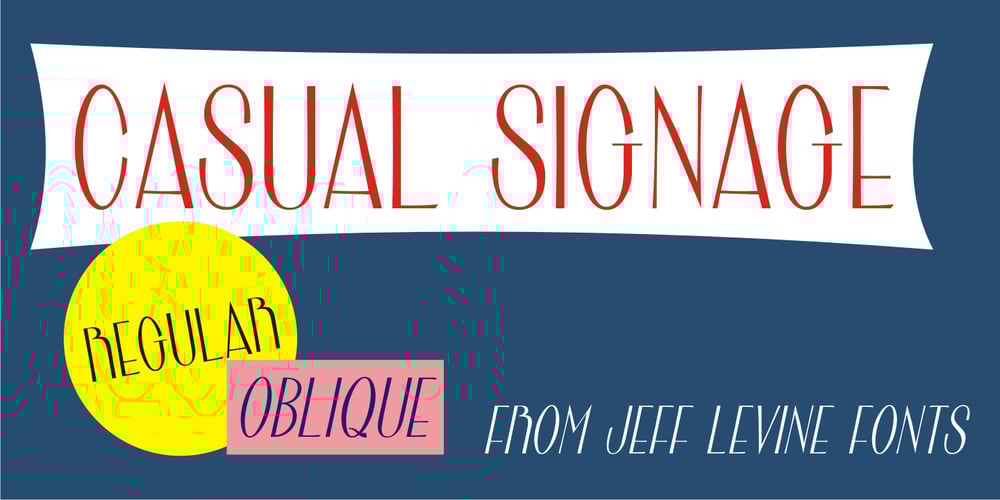
Casual Signage JNL Font Family was designed by Jeff Levine and published by Jeff Levine. Casual Signage JNL contains 2 styles and family package options. Alf Becker was a talented sign writer and a prolific contributor of unique alphabets to Signs of the Times magazine. More than one hundred of his designs were showcased in monthly installments with each new issue of the publication. One in particular is a casual, free form sans serif design which has been recreated digitally as Casual Signage JNL, and is available in both regular and oblique versions. Thanks to Tod Swormstedt of ST Publications for providing the reference material for this font.